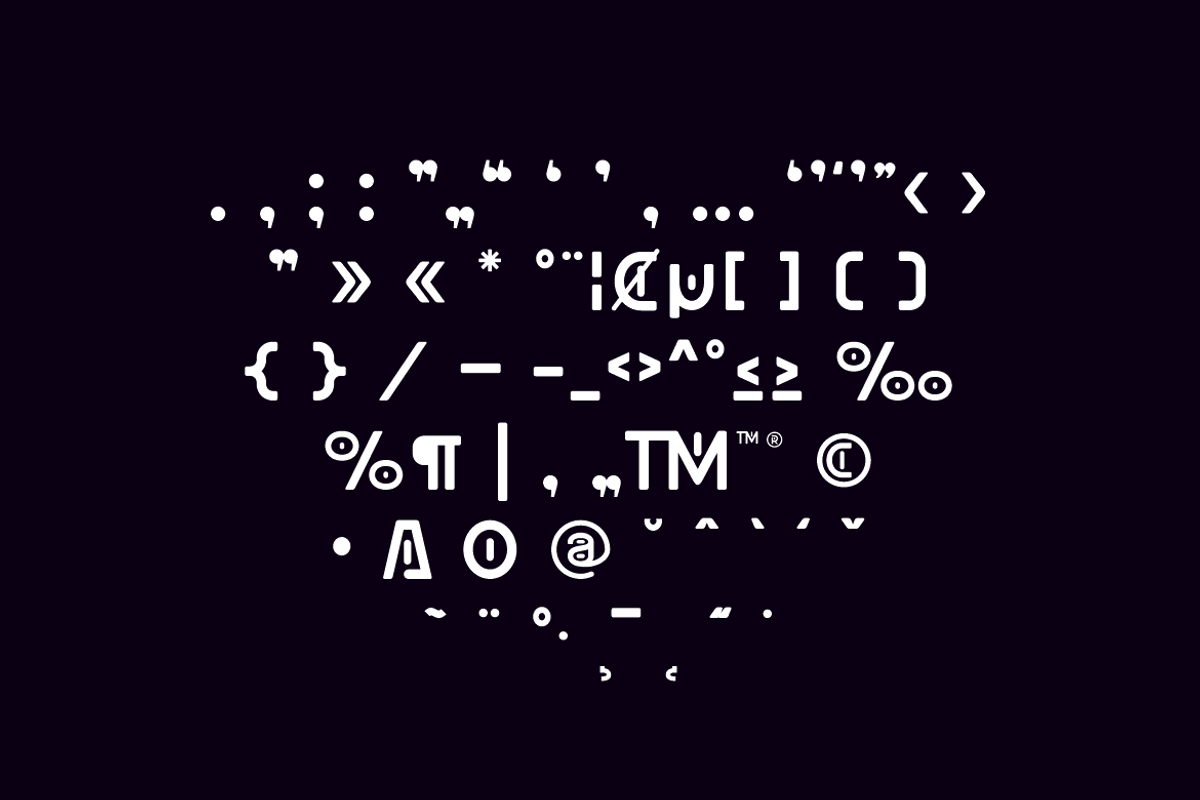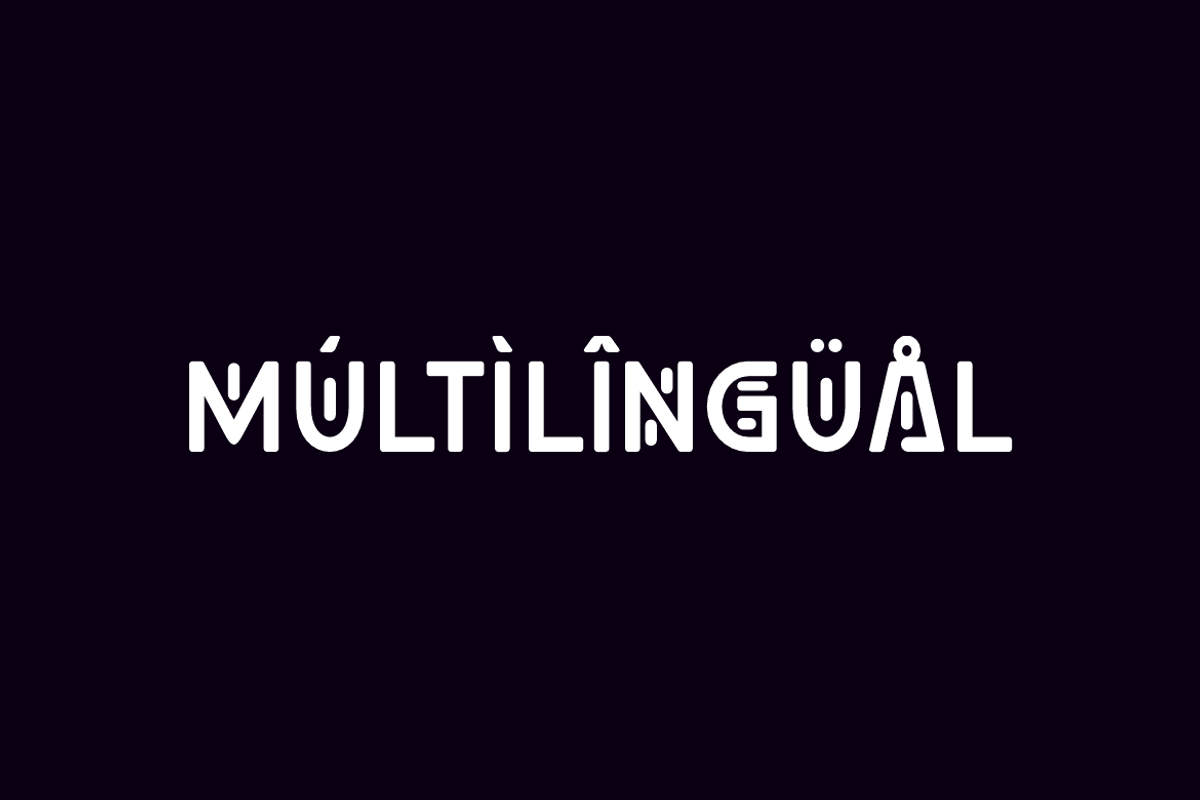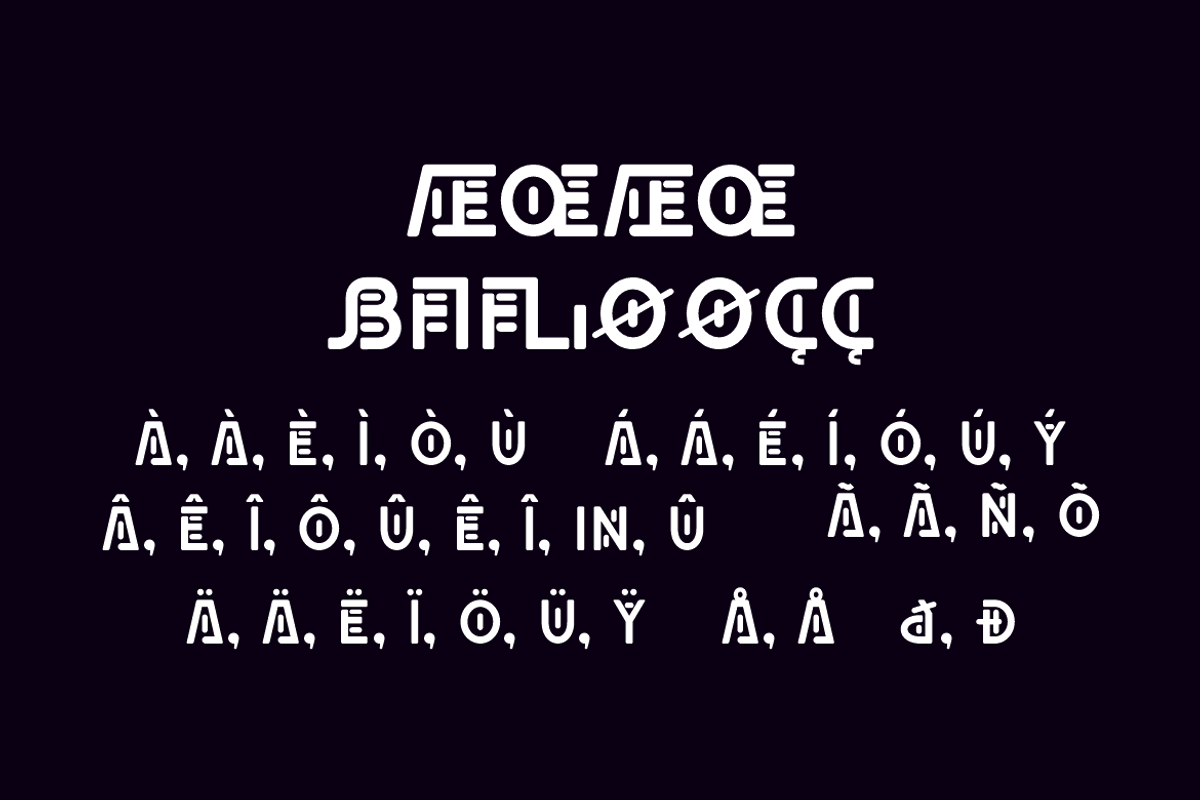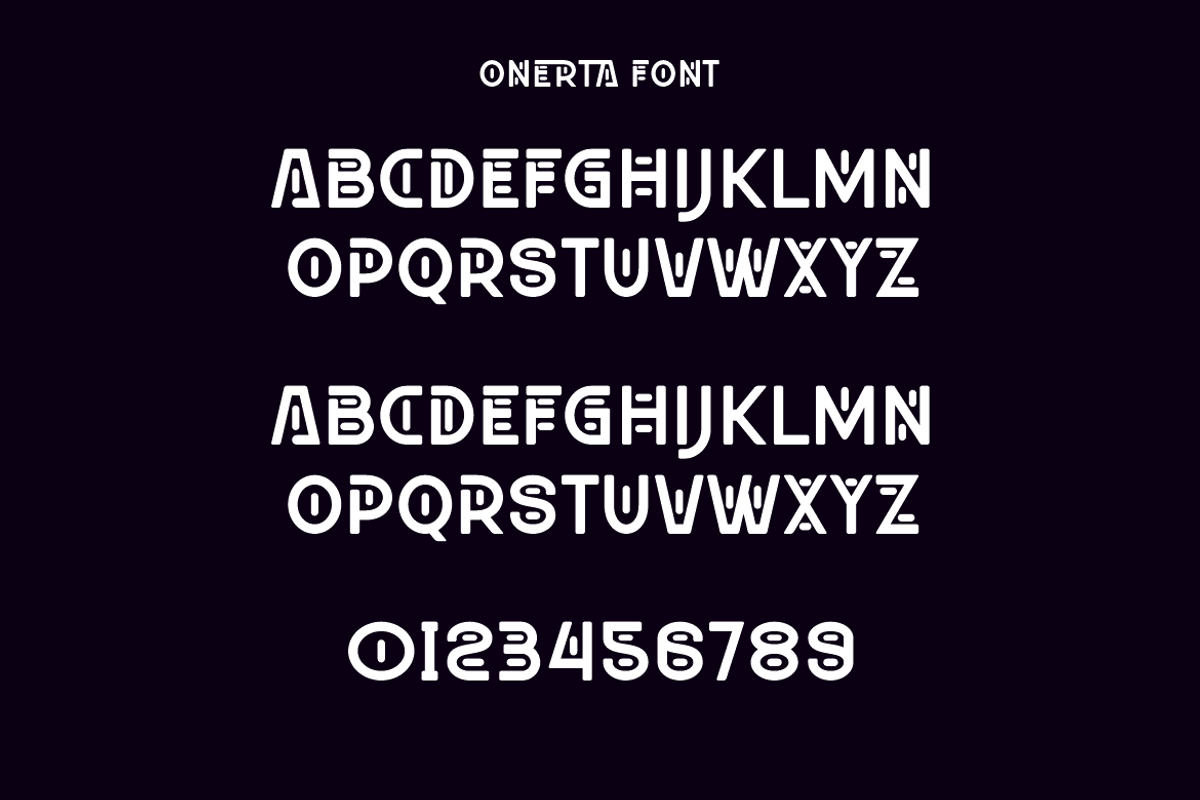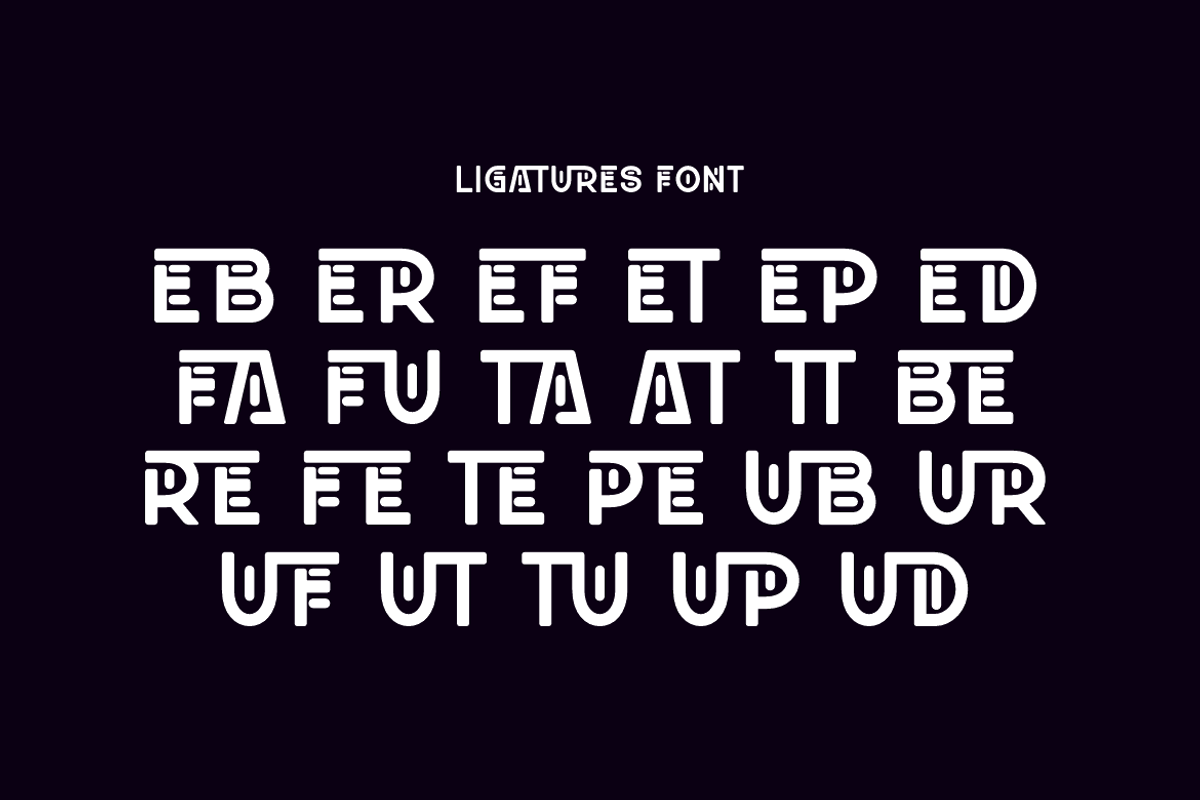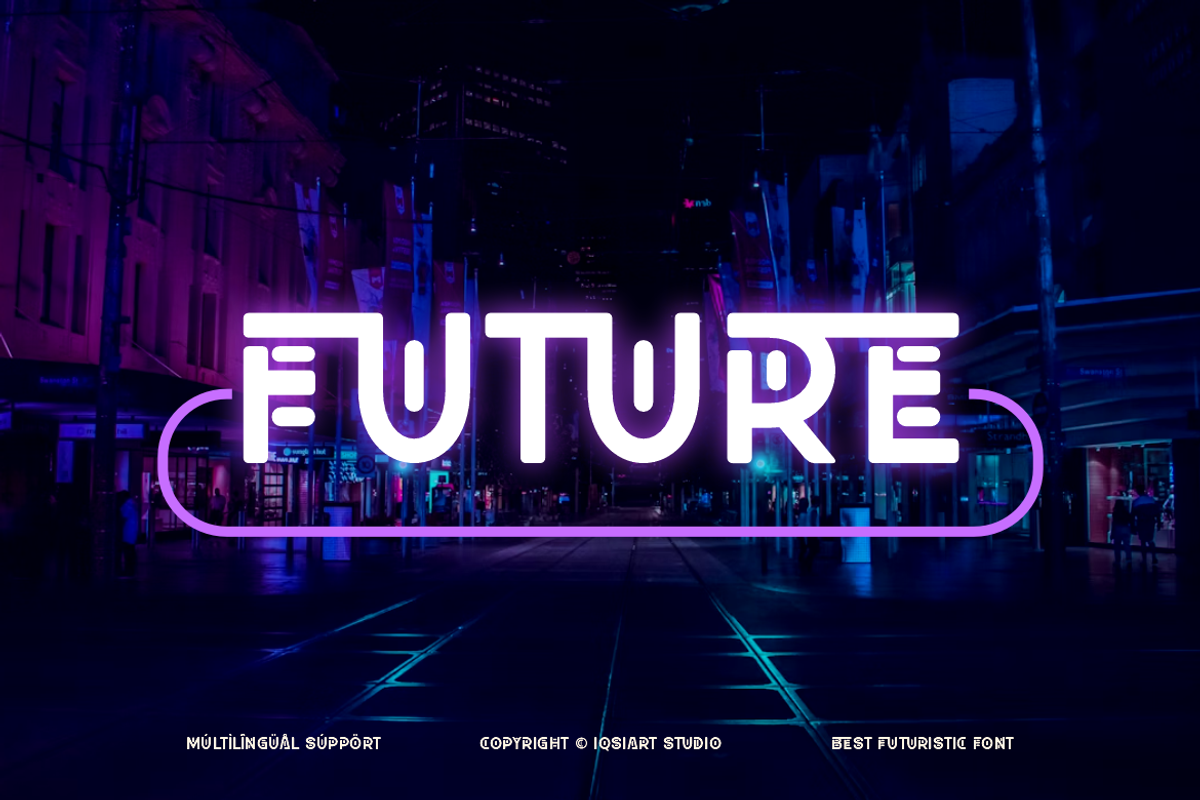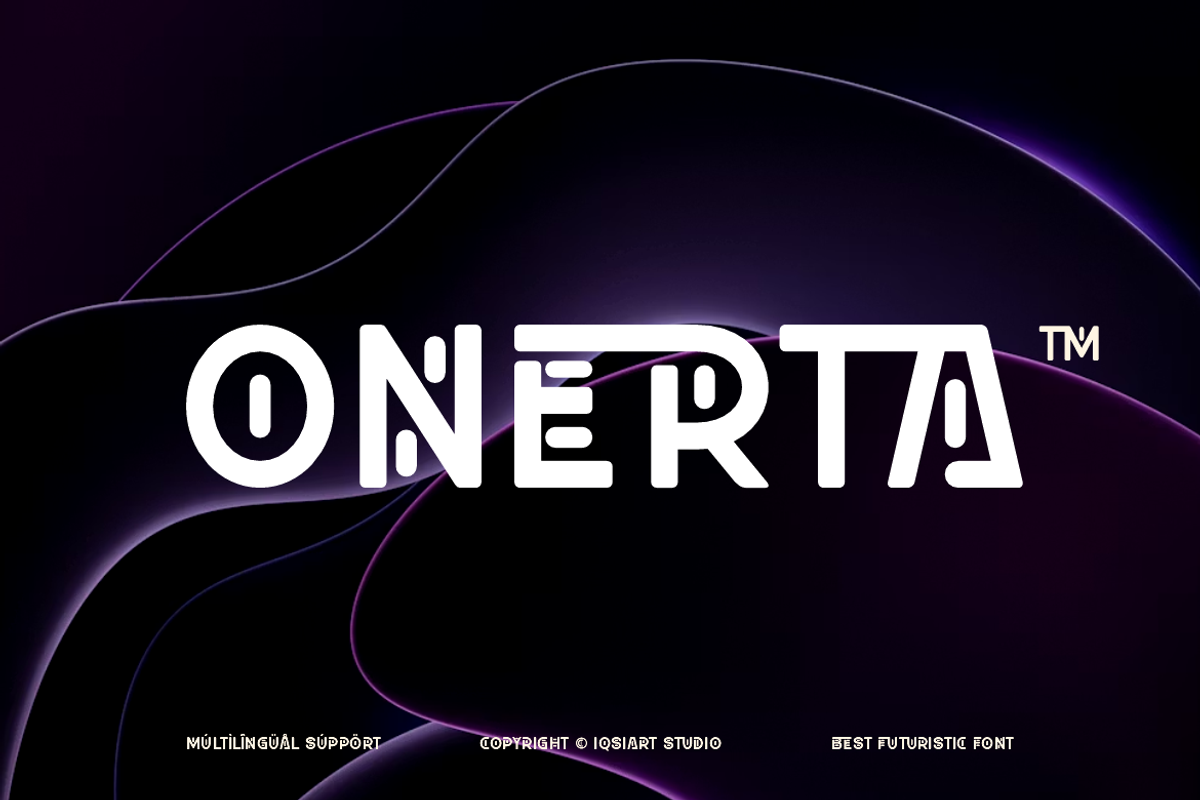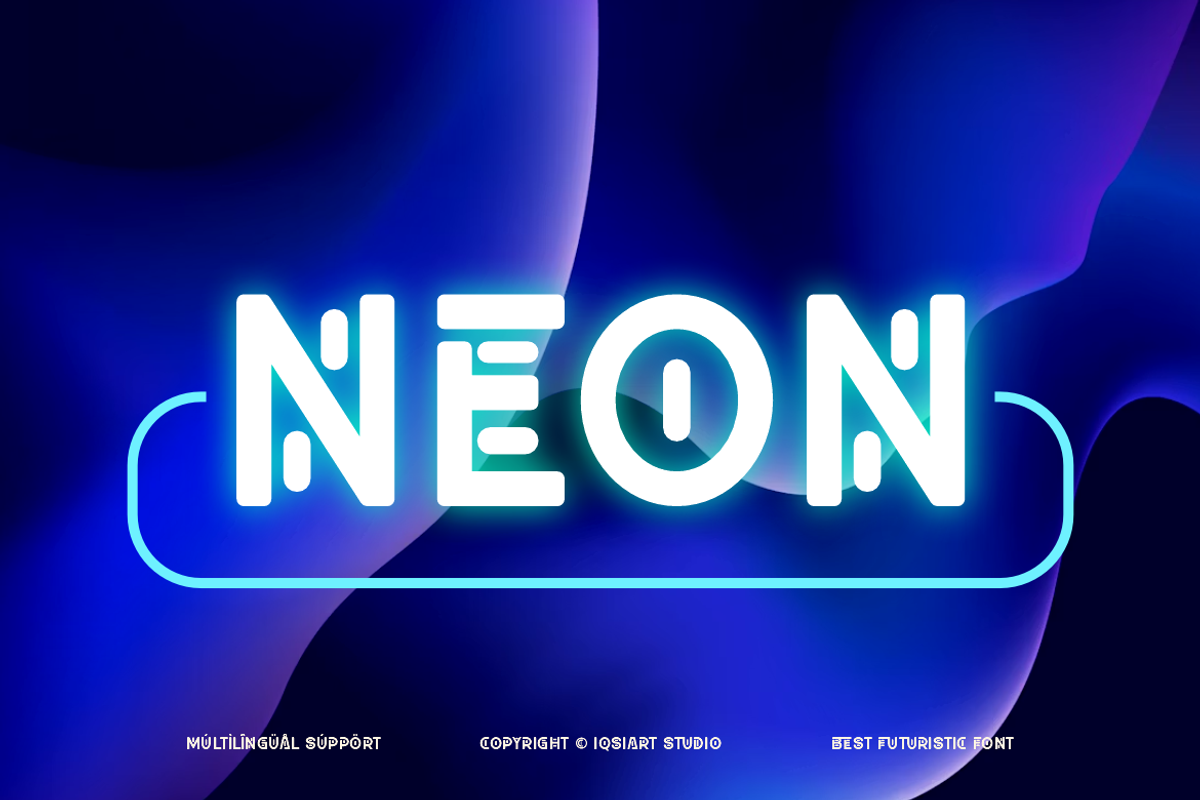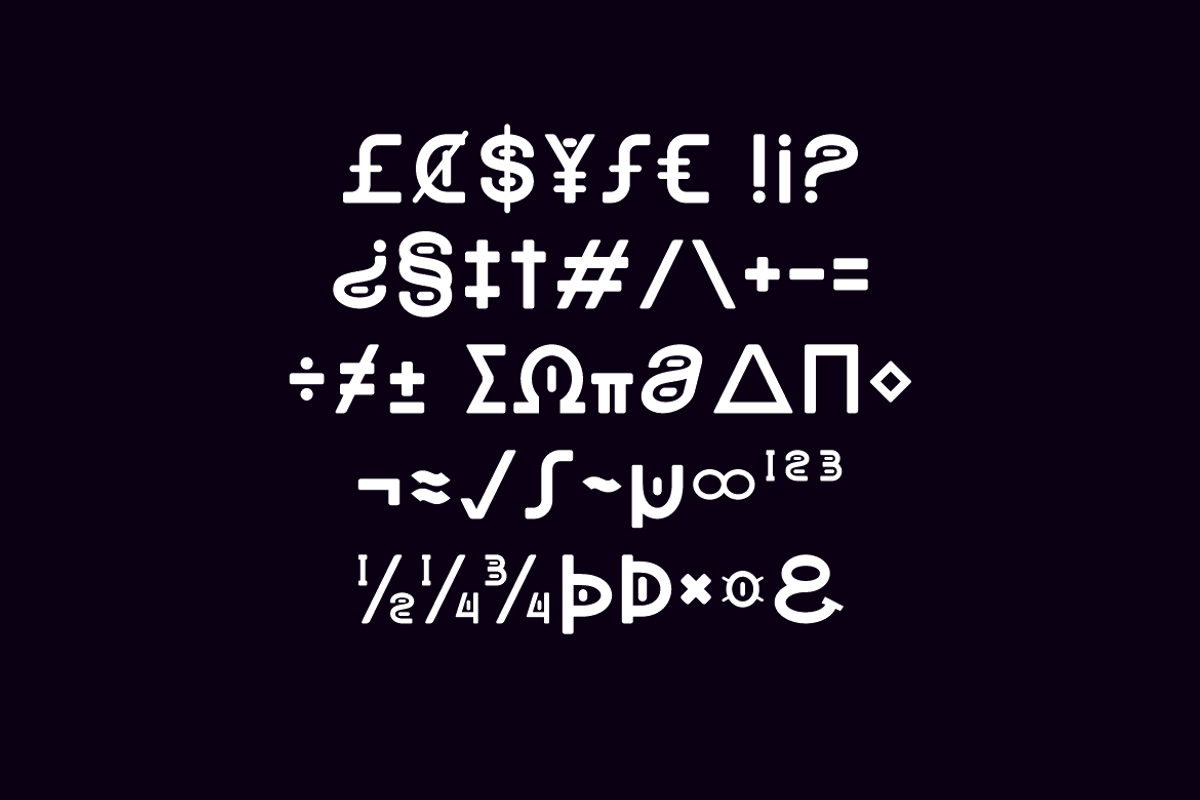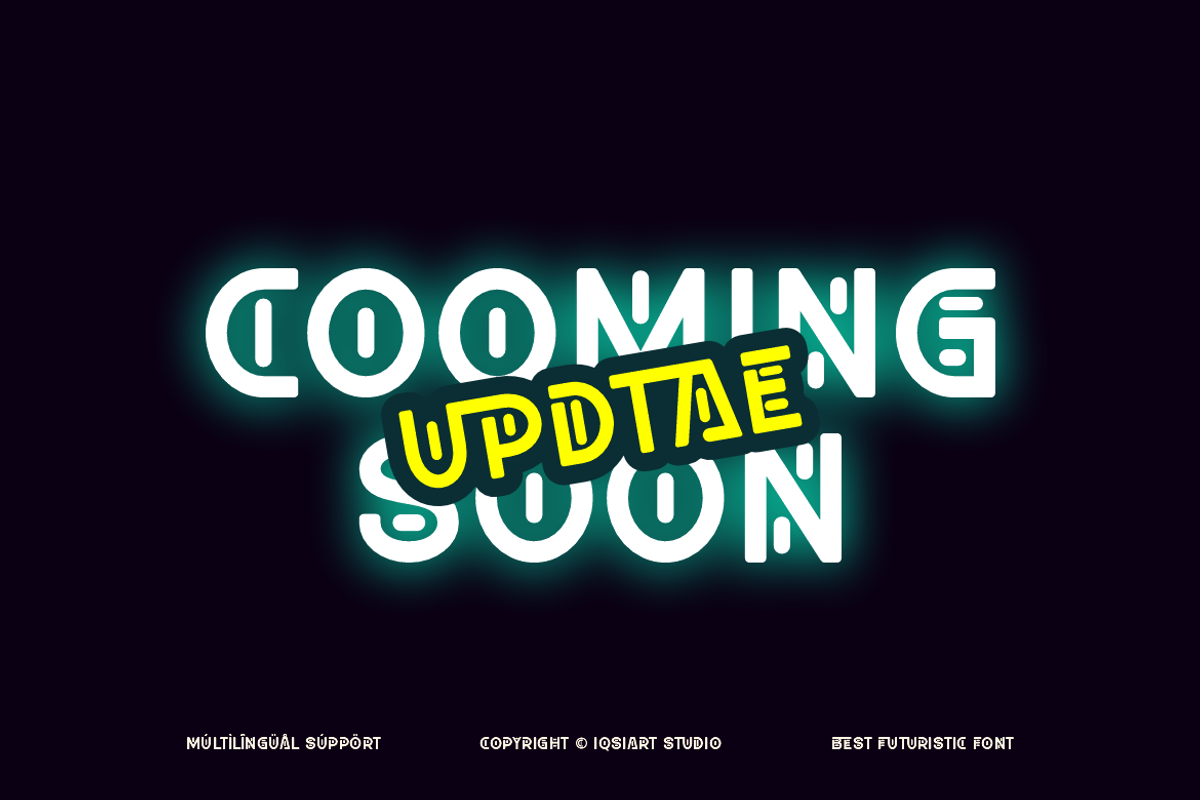
Onerta - Neon Futuristic Font
Onerta Font is a bold and authentic display typeface that suits a variety of design needs. We offer a wide range of themes and font styles — visit our profile to explore more and find the perfect style for your project.